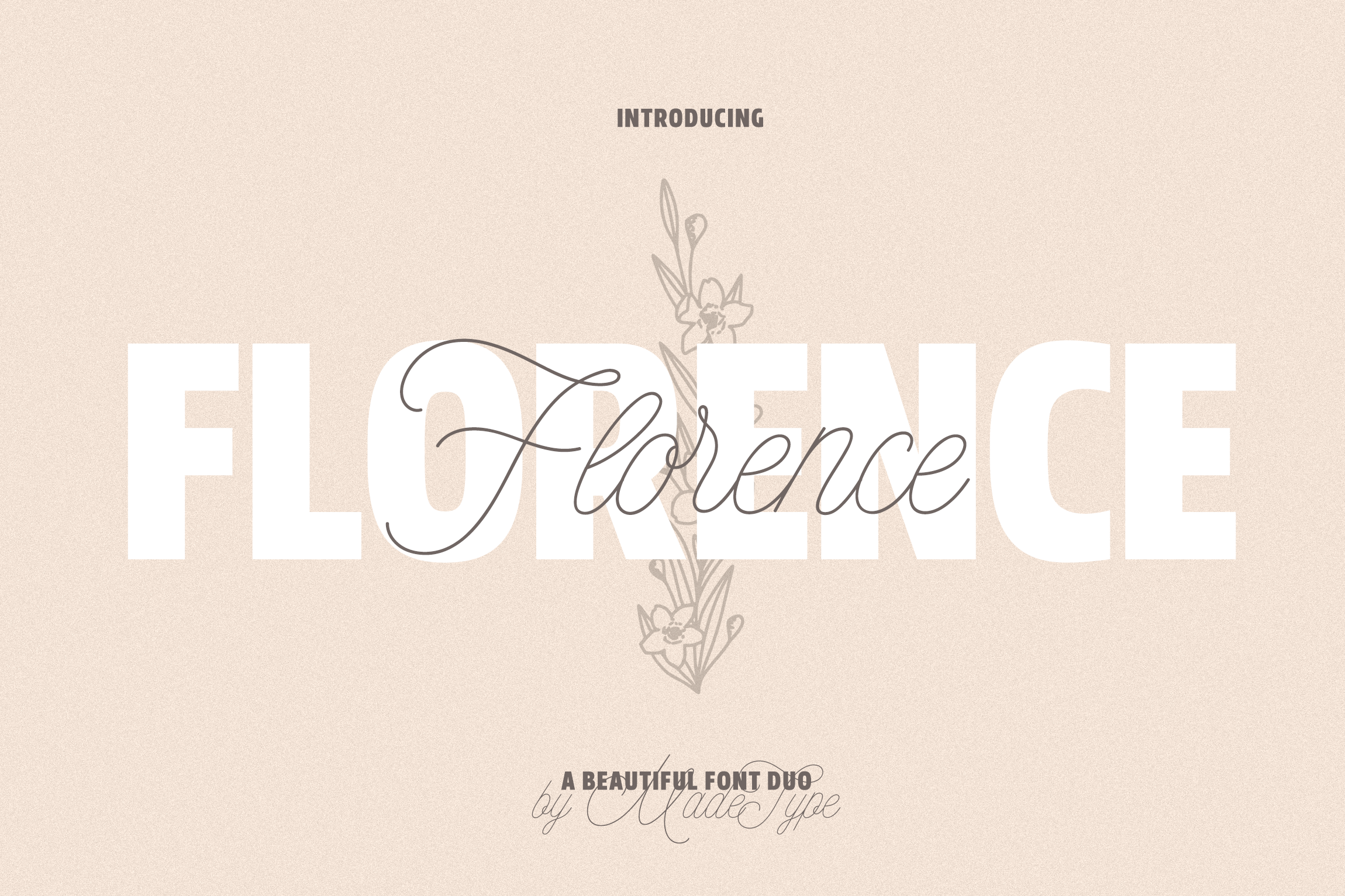
MADE Florence | a Beautiful Font Duo
MADE Florence is a beautiful font duo.
The Florence will perfect for many project: design, fashion, magazines, logo, branding, photography, wedding invitations, quotes, blog header, poster, advertisements, etc.
- Uppercase & lowercase letters, numbers, punctuation
- Ligatures support: Florence Script